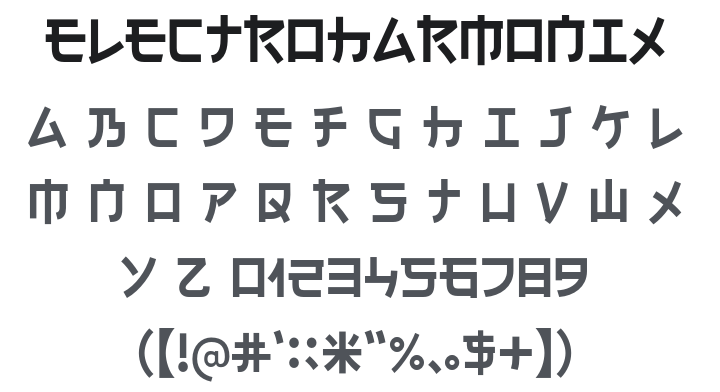
Electroharmonix Font
About Electroharmonix
Electroharmonix is a pseudo-Japanese display typeface where Latin letters are built from bent, flipped, and twisted katakana and kanji strokes — making it look exotic and Asian-flavored to Western eyes, while being completely unreadable to actual Japanese readers. It's purely decorative and carries a cool anime/manga aesthetic. Great for game titles, sci-fi branding, Japanese-inspired packaging, and edgy music or tech designs.